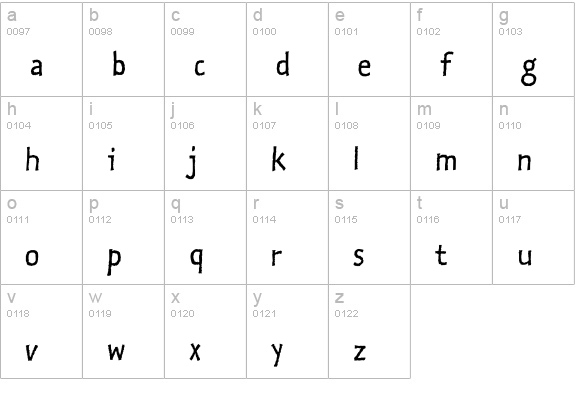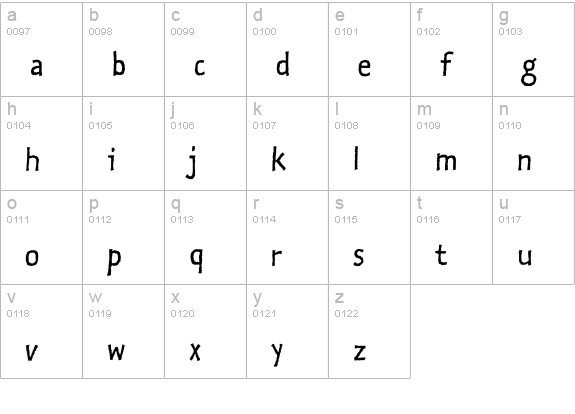
Kosmik-PlainOne Font Details
Kosmik-PlainOne font is a modern and stylish typeface that exudes simplicity and sophistication. Its clean lines and rounded edges make it perfect for a wide range of design projects, from branding to editorial design. The versatility of this font allows it to be used for both headings and body text, ensuring a cohesive and polished look for any project. What sets Kosmik-PlainOne font apart is that it is available for free download at FontsMarket.com. This means that you can easily access this high-quality font without any cost, making it a great choice for designers on a budget or those looking to experiment with new typefaces. With its sleek design and easy readability, Kosmik-PlainOne font is sure to elevate any design project it is used in.